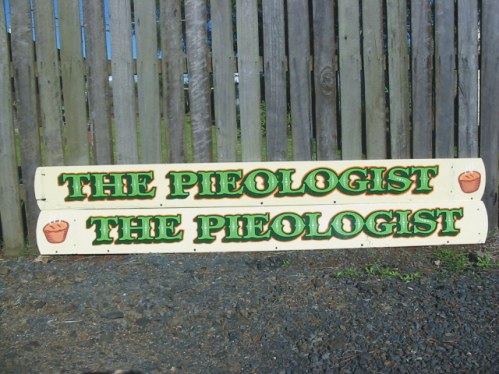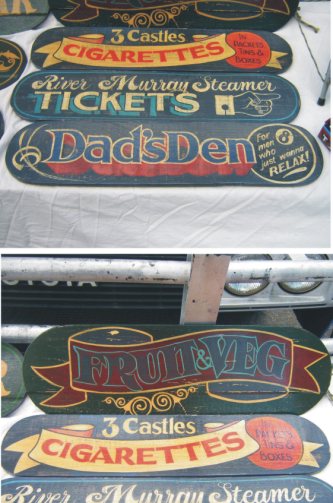
Author Topic: Panel Swap #8 is ON!
I was going to leave this until later in the year, but have been prompted by several requests by the more keen participants of #7.
I'm still going to leave the deadline date 08/08/08 for final pics to be forwarded to me for the draw. [Wink]
This will mean you have plenty of time to think about it and produce the panel. So, NO EXCUSE! Join in.
Theme: Panel Swap #8 is RETRO 8 x 10 = 1928 !!!!
Let's go Old Signs, old labels, old scrolls, old techniques.
So, start those creative juices flowing!
Simple Rules:
2. Limit 2 panels per person.
3. Draw will be done asap after that date and all panels posted on the BullBoard.
Whoo hooo!
I was reviewing all the past ones and am in the middle of making take-along and full-size samples for my showroom.
I was waiting for someone to come up with a swap!!!!!
I am sooooo in!
Brilliant theme Jon.
.and I DARE anyone to exceed the finish date 08/08/08 !
Count me in too
Panel Swap, Hmmmmmmmmmm
OK you twisted my arm.
I'm in!
I'm game for it.
Now that's a deadline I think I can handle......